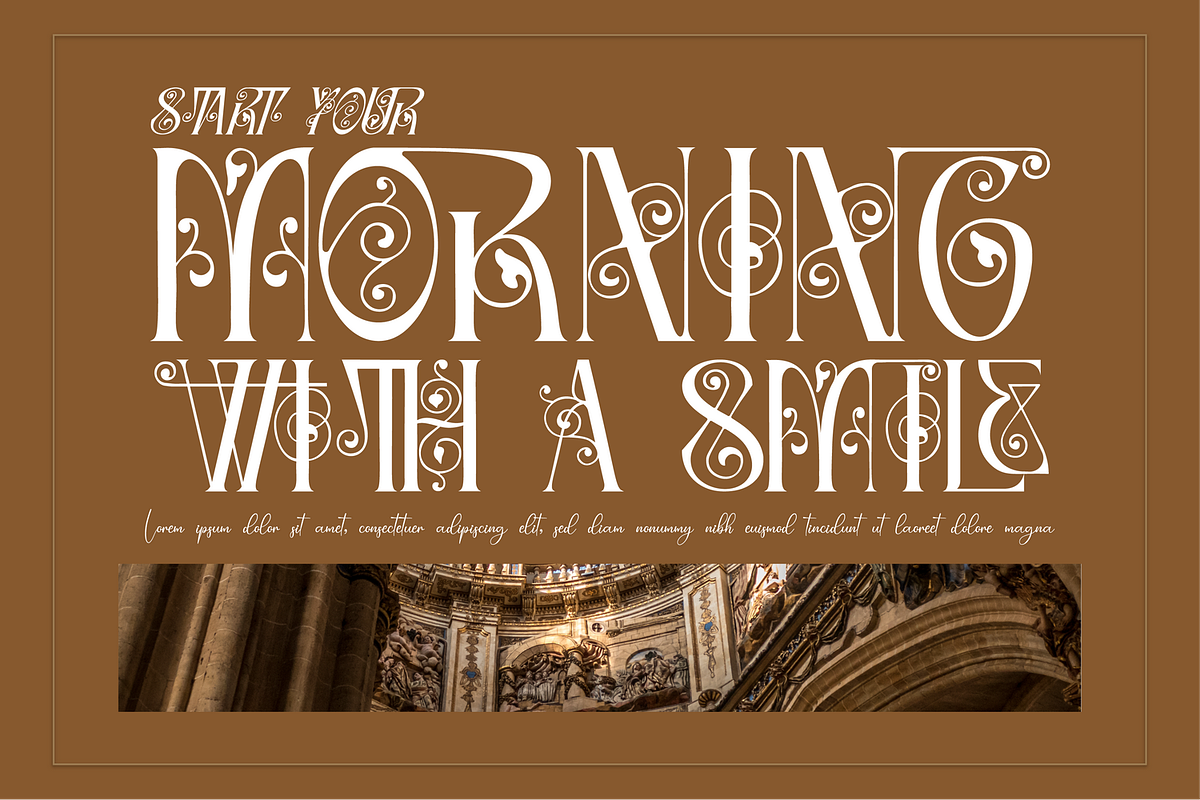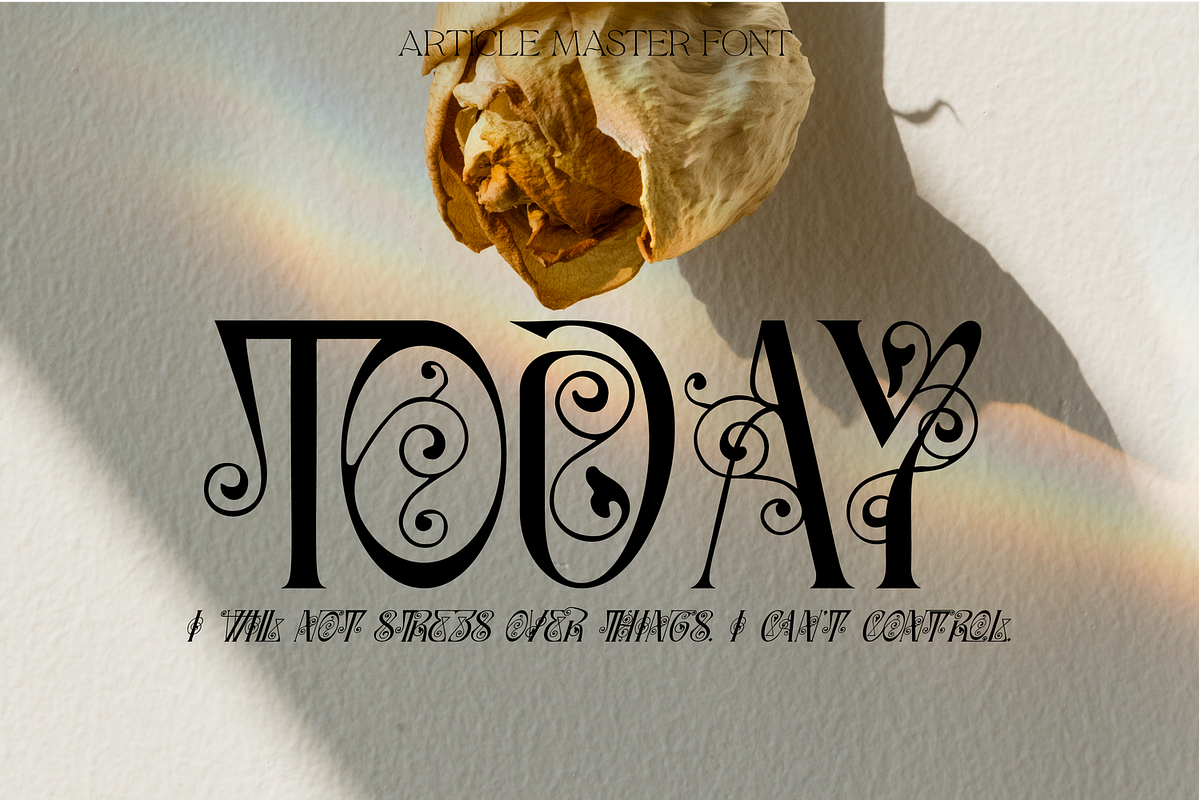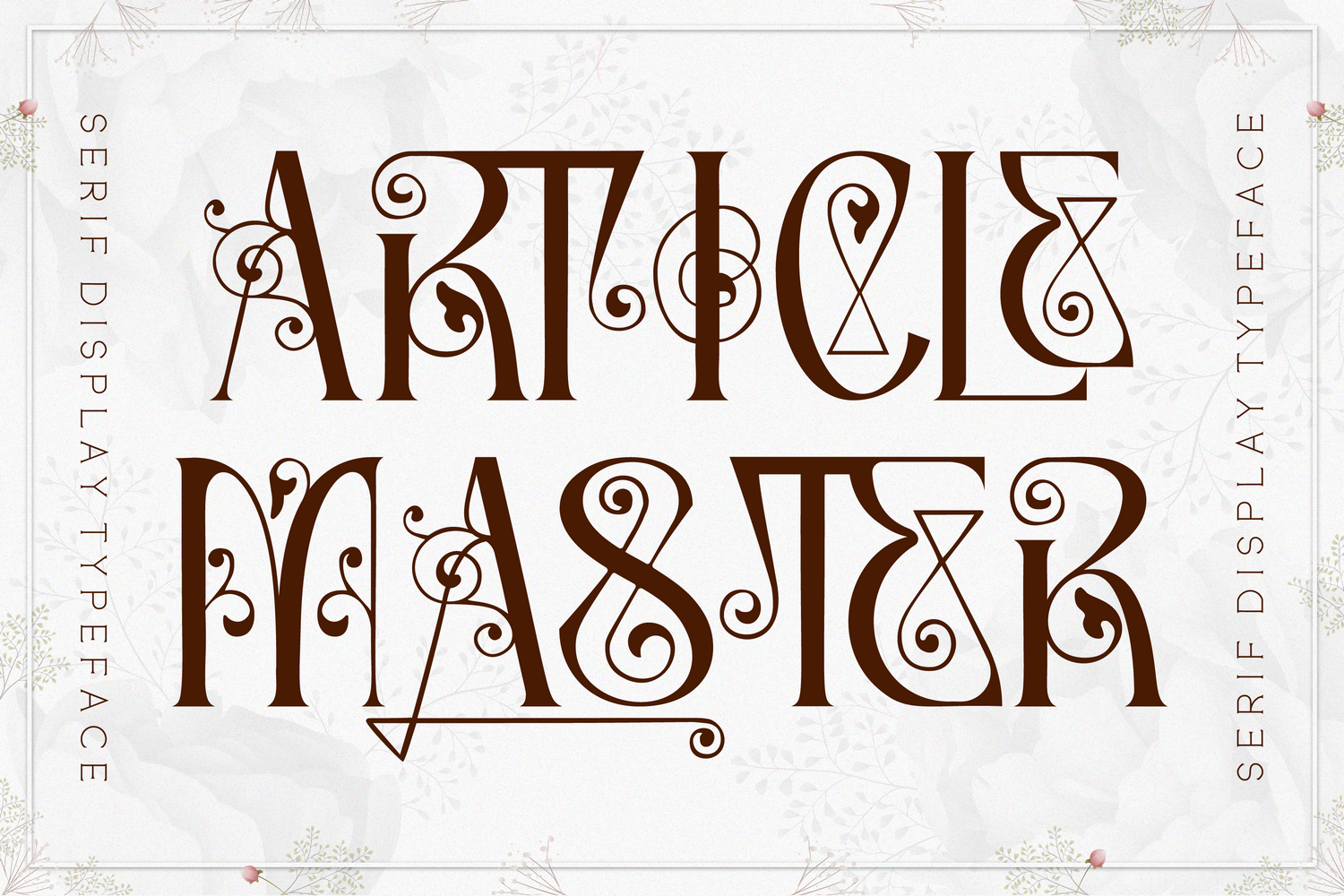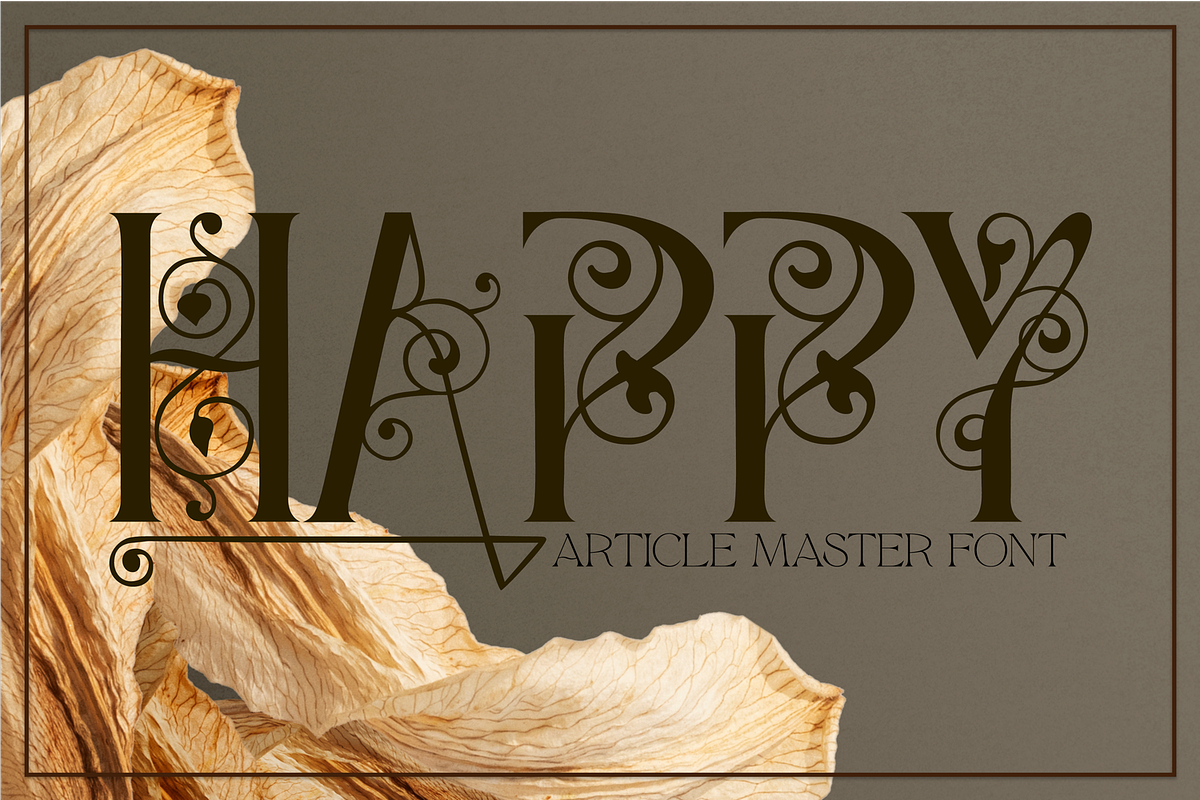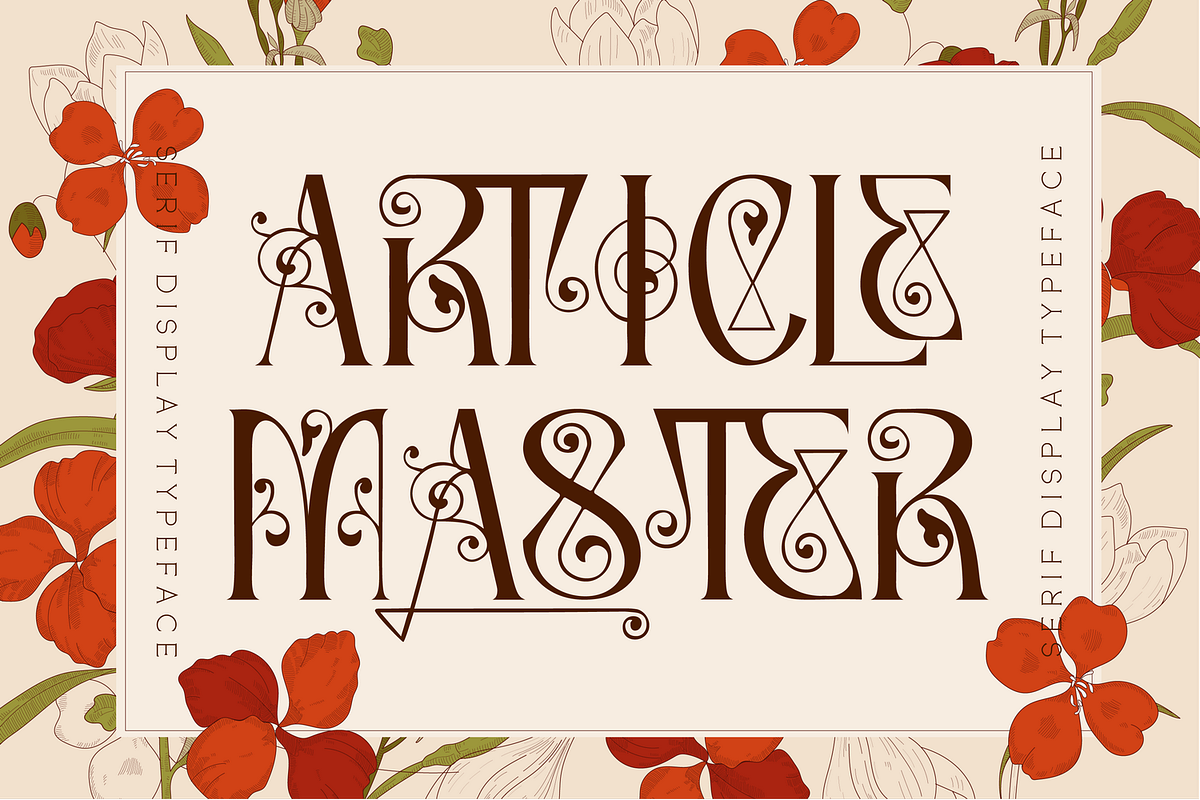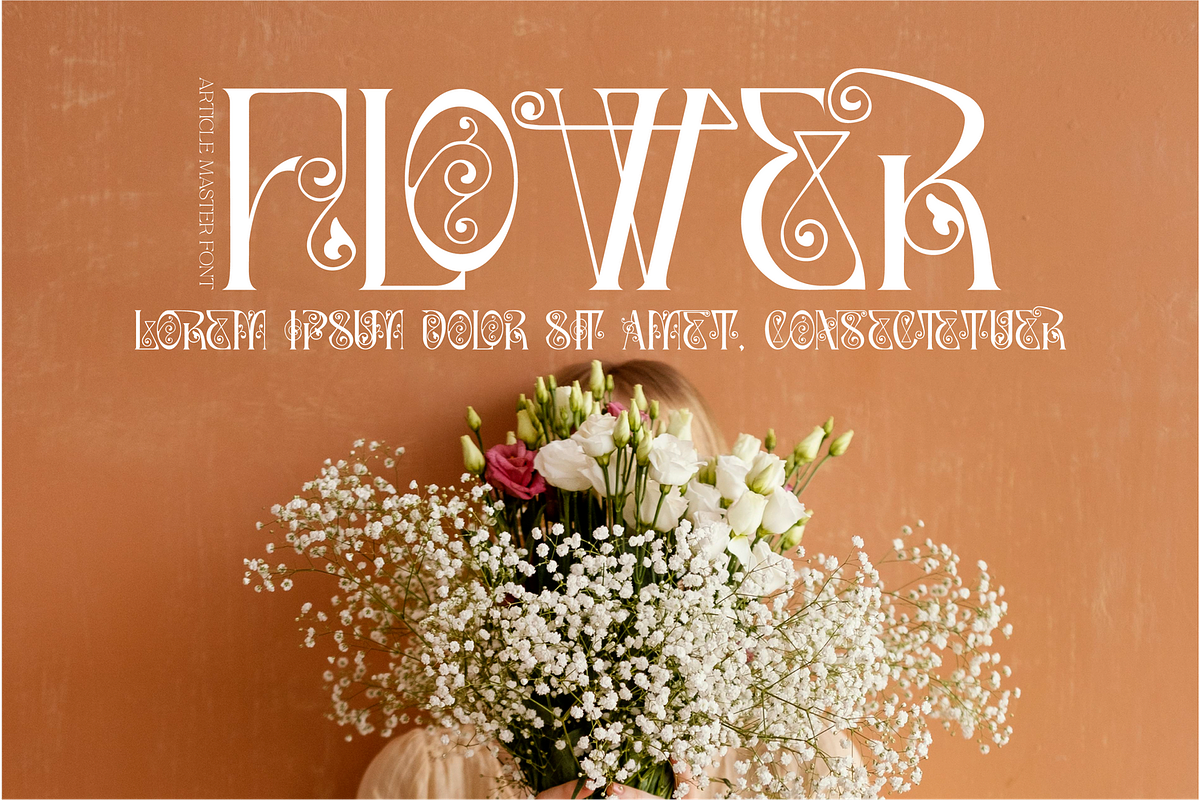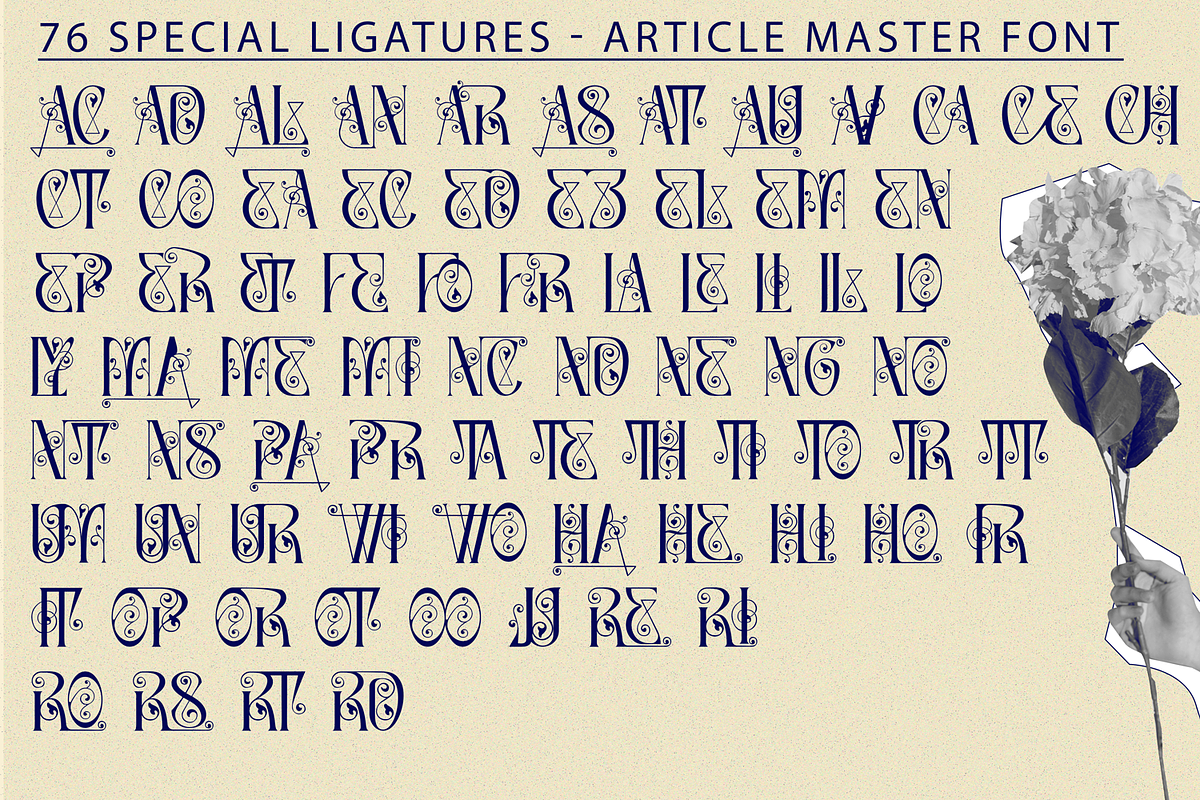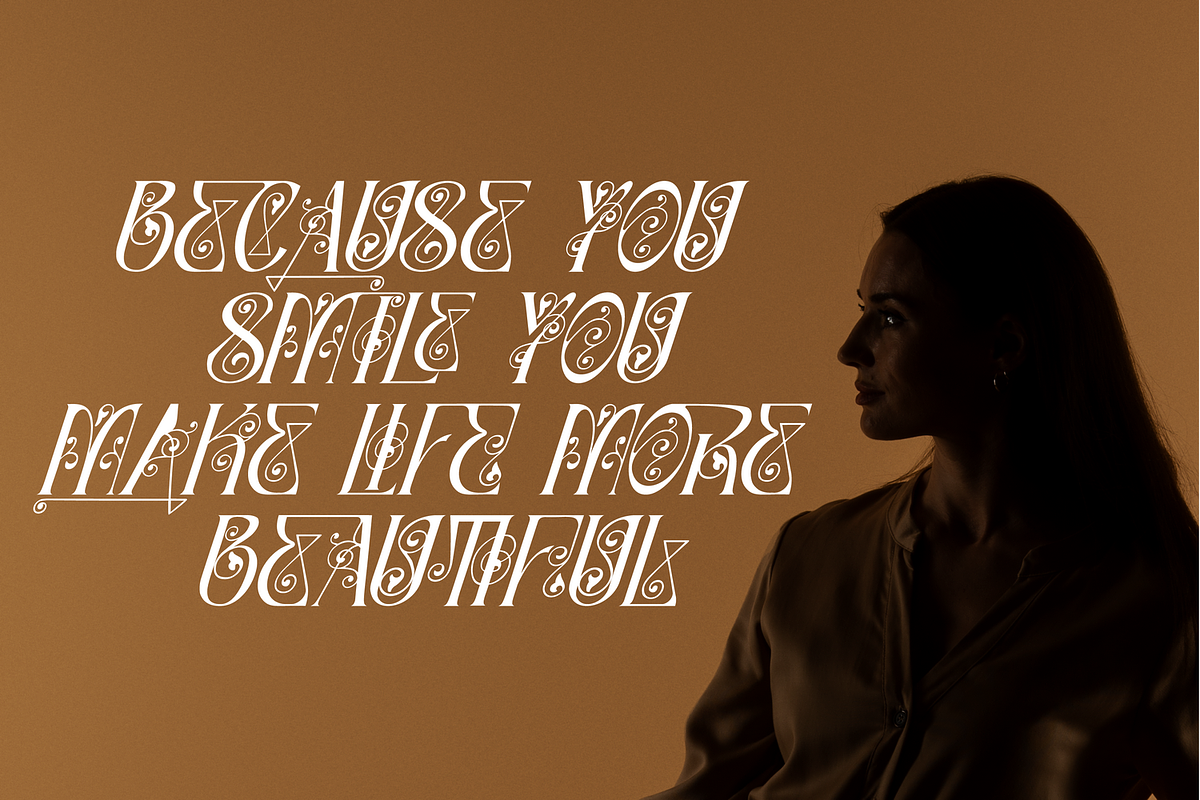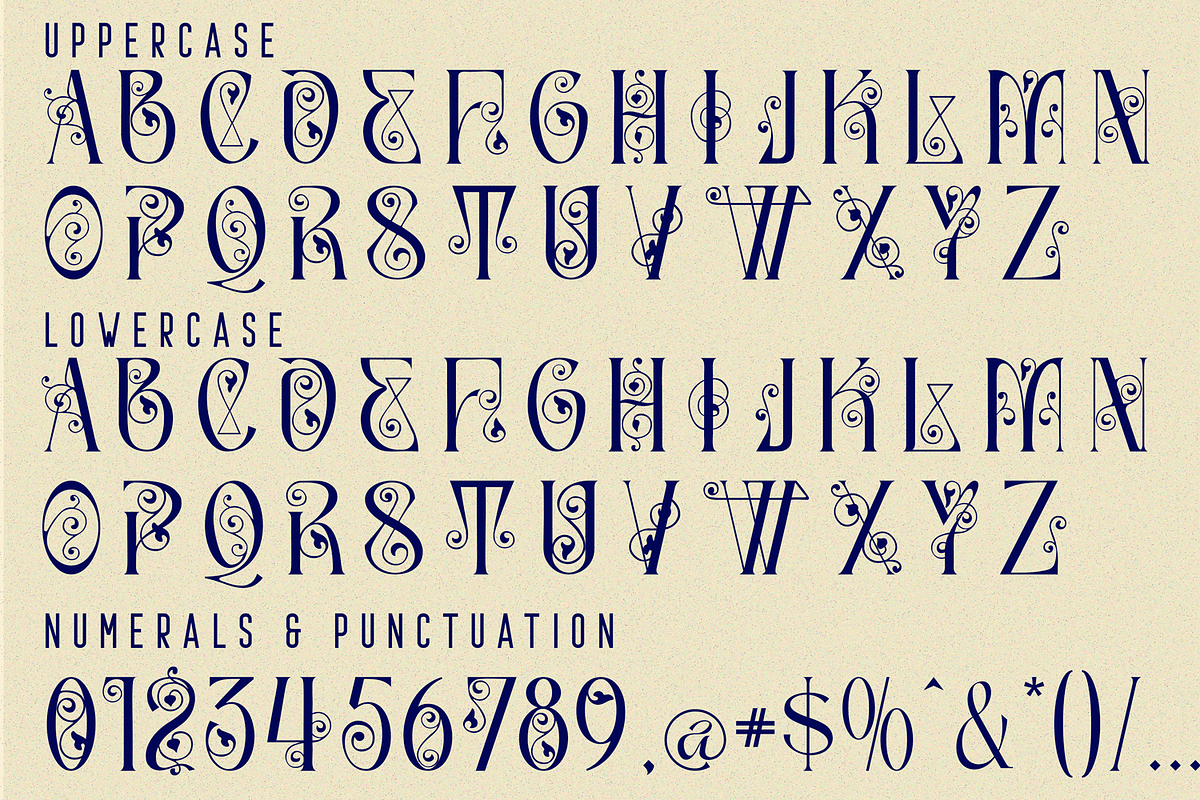
Article Master - Decorated Font
Article Master - Decorated Font is a display font decorated with patterns. Make your design as a time machine. Inspired by the decorative victorian advertising poster, Mooners came to make make your document, poster, logo, etc... perfectly have classical vibes. A solid combination that can bring your design, logo, document, website, etc. back to 1800 decade.
To make it look more unique, here we prepared some ligatures:
AC AD AL AN AR AS AT AU AV CA CE CH CT CO EA EC ED EE EL EM EN EP ER ET FE FO FR LA LE LI LL LO LY MA ME MI NC ND NE NG NO NT NS PA PR TA TE TH TI TO TR TT UM UN UR WI WO HA HE HI HO IR IT OP OR OT OO JU RE RI RO RS RT RD